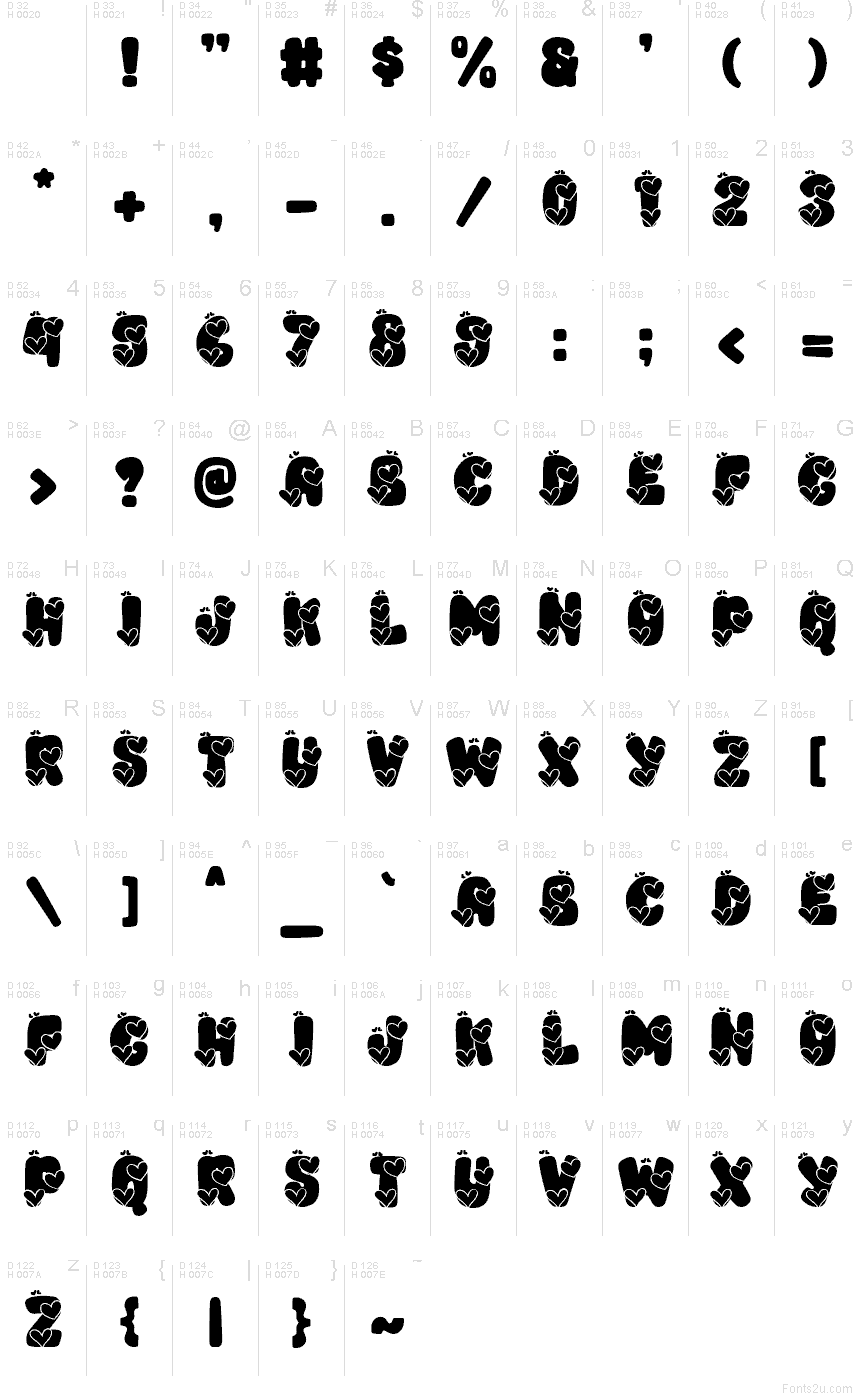
Retro Valentine font by DM Letter Studio - Dimas Prasetyo is a free valentine holiday decorative typeface that turns every word into a bouquet of hearts. Thick, bubbly letters are packed with playful heart cutouts and curvy details, giving it a groovy, ’70s love-note vibe. The black shapes feel bold and inky, while the inner heart motifs add a sweet, hand-crafted charm that’s impossible to miss.
Using Retro Valentine, your headlines instantly feel like candy wrappers or vintage love posters. This free font shines on greeting cards, party invitations, classroom valentines, social media graphics, stickers, and themed gift tags. Keep it large so the heart details stay crisp, and pair it with a clean sans serif for body text to keep your layouts fun but readable.